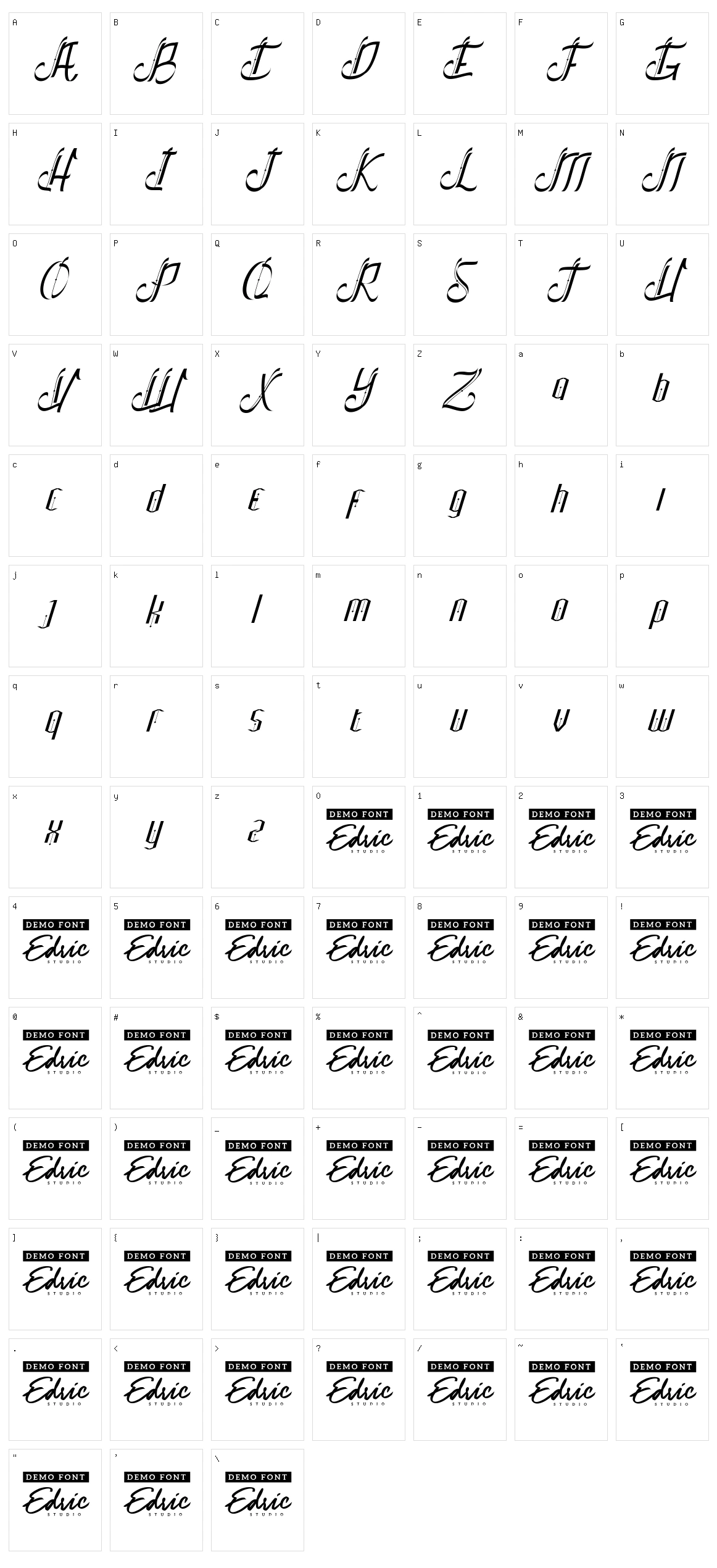
The Empire
Description: The free font The Empire is carefully designed by Edric Studio, showcasing a thoughtful balance of creativity and usability and belongs to the Gothic font family. When you download the ZIP file, it contains only 87.5 KB of font files, making it lightweight and quick to download. Please review the license details below to understand permitted usage and distribution rights. If license information is not available, we recommend using this font for personal projects only or contacting the author directly for commercial usage permissions.
The Empire Character Set